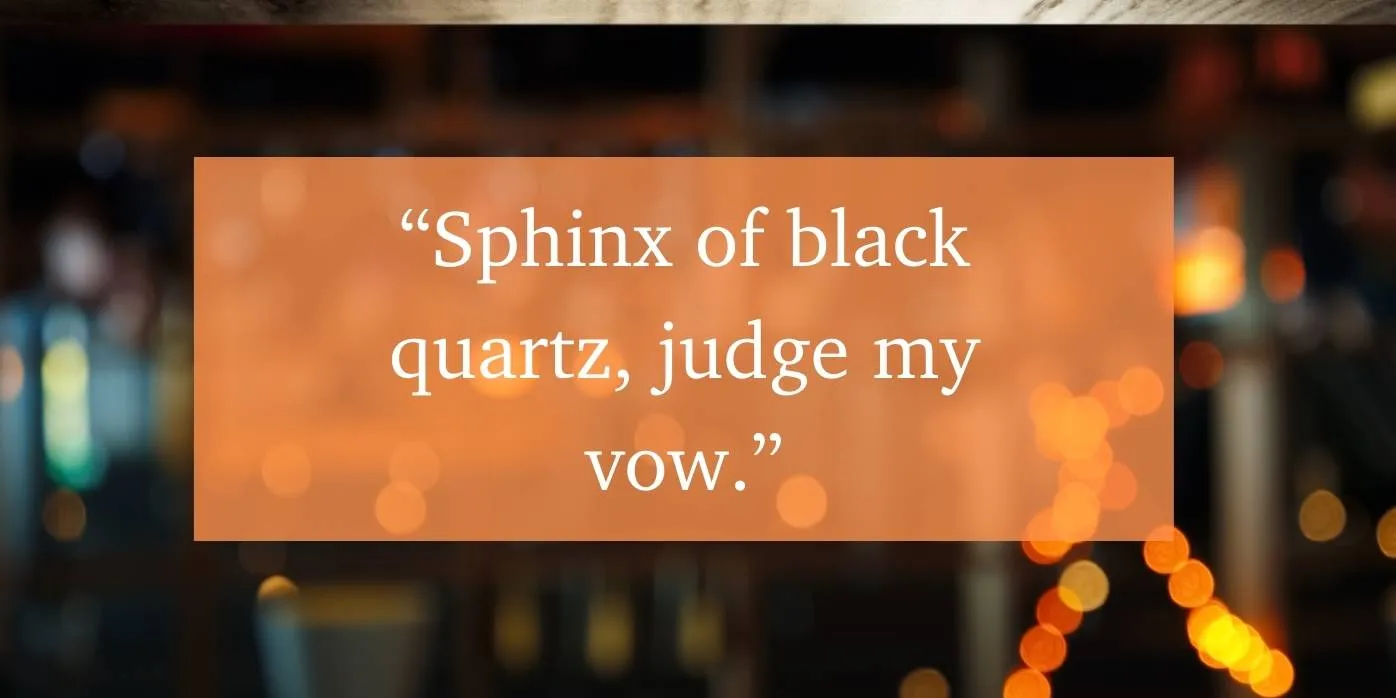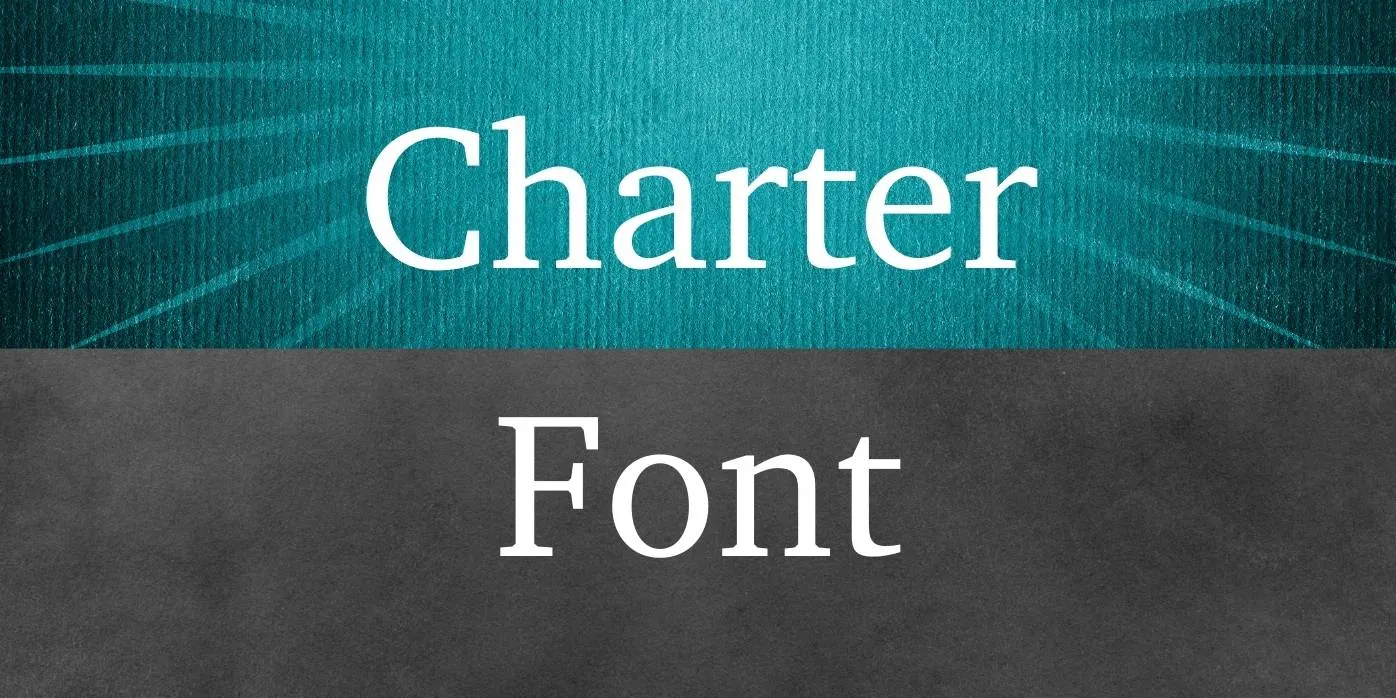
Charter Font
Charter Font is a serif typeface that was designed by Matthew Carter in 1987. It is named after the American Constitution and is often used for legal documents and books. This awesome Font has a simple, clean design that makes it easy to read. It is available in regular, bold, and italic styles.
This versatile Font can be used for both formal and informal occasions. It’s perfect for creating elegant documents or adding a touch of class to your website. Thanks to its clean design, Charter is also very easy to read. Athelas Font is similar to this typeface and works in the same manner.